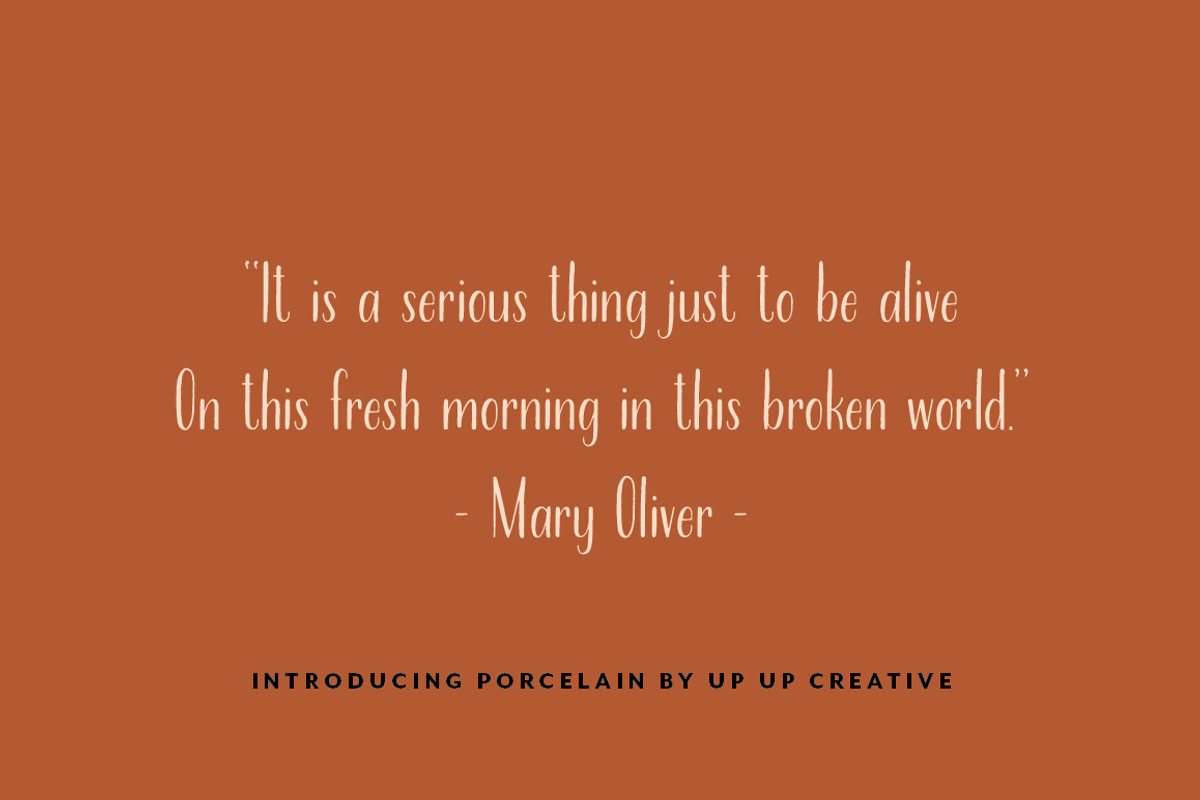
Porcelain Condensed Sans
** Introducing Porcelain, a hand-lettered condensed sans serif font with subtle dip-pen calligraphy texture and some fun OpenType features. Porcelain is perfect for invitations, branding, and editorial design and can be dressed up or down depending on your needs.**
Porcelain comes with more than 436 glyphs! Specific OpenType features include stylistic alternates, standard and discretionary ligatures, and multilingual support (including multiple currency symbols).